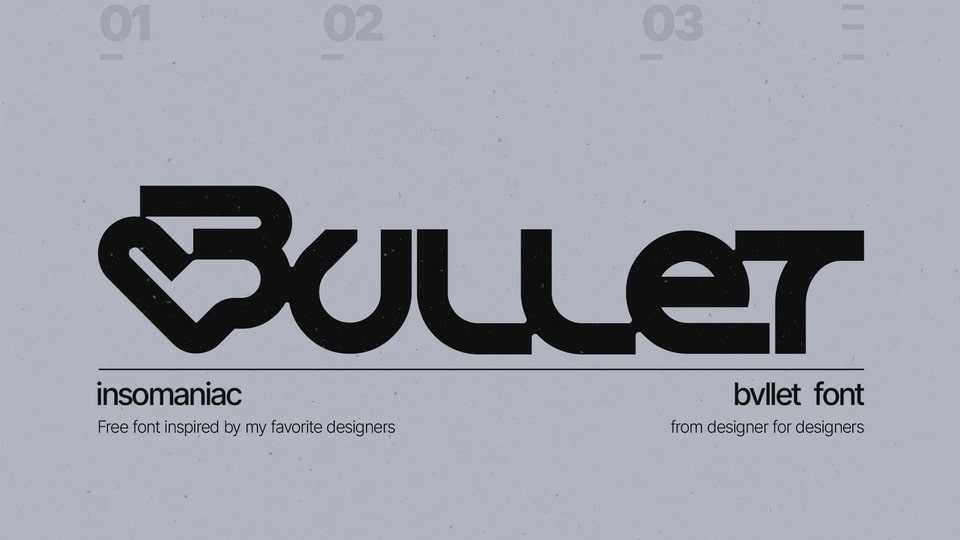
Download Bvllet font, a cutting-edge display typeface that fuses brutalist geometry with smooth modular forms. Bvllet font plays with symmetry, sharp angles, and stylized cuts.
Designer: Insomaniac